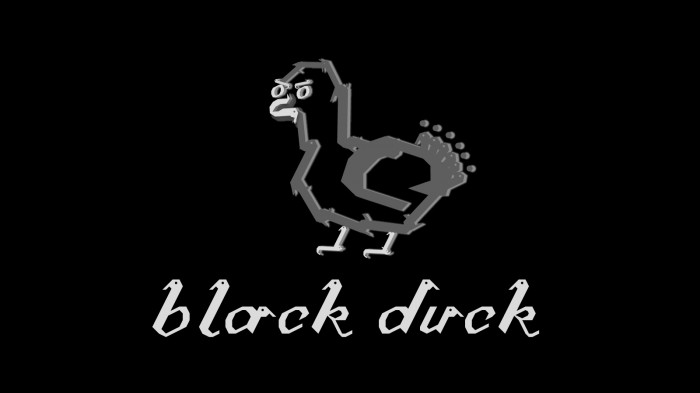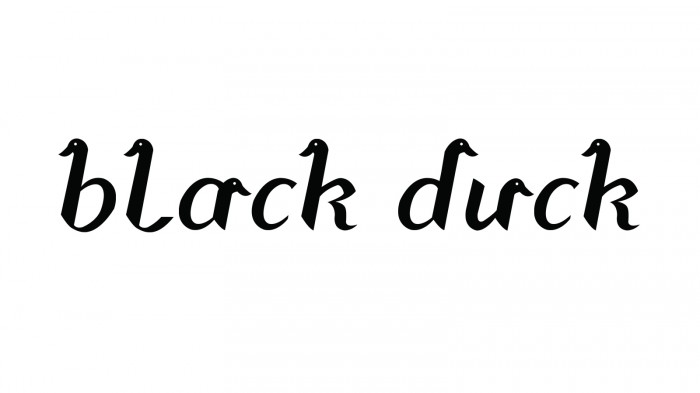
Black Duck is a typeface that is inspired from modern-blackletter typeface and duck characteristics combined. Duck meat's crispiness and strong taste, and the duck figure itself are the main characters inserted in the making of this typeface. The slanted figure shows its timeless and versatile characteristics.
such an innovative and extraordinary typeface.
you should give more spacing between 'x', 'y', 'z', and 'p' though
such an innovative and extraordinary typeface.
you should give more spacing between 'x', 'y', 'z', and 'p' though
nice one! great job, adding the ducks on the alphabets!
this typeface is so unique! well done!
nice work.. btw.., itu huruf 'a'-nya memang kepotong ato gimana ya..?? wkwkwk..
this font is in one big family with mine, it looks like handwriting and it is really cool!
overall, welldone! but in my opinion the word "v" looks more like an eel :P
Nice & Unique... But I think "s u v w x z" will lookbetter without the duck head... Wkwkwk...
So unique. Love the idea how you put the duck in the typeface
Unik polll hehehe... kelihatan tuh bebeknyaaa
Lucu ada kepala bebeknya :)
newest update - smoothened version.
bagus banget nempel ama konsep bebek font nya unik banget nice..
typefacenya unik sesuai dengan tema kebernya
cute typeface, suka pol sama bebeknya :)
Unique one!! rapi, enak diliat, lengkap lagi.. good jobb!!
nice dan lucu fontnyaa :) keep it up
Wow, Script keren
cute font! goodjob :)
nice concept, all of the curves seems pretty smooth too. but i think... you should change the number "9" since its pretty much look like "q".
But overall i like it.C'mon ,who doesnt like cute duck fonts :D